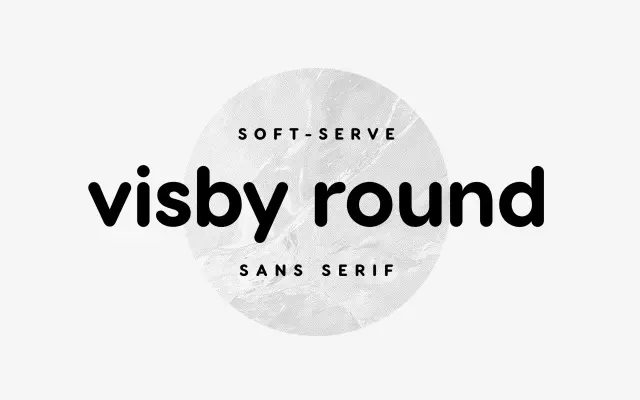
Visby Round
A rounded geometric sans in eight weights with obliques, covering Latin and Cyrillic for friendly, approachable typesetting.
Derived from Connary Fagen's Visby, this variant softens the geometric forms with rounded terminals and subtle humanist influences. Sixteen styles span Extra Light through Heavy, each with a matching oblique, and the character set covers over thirty languages in Latin and Cyrillic scripts. The warmth of the rounded forms suits app interfaces, packaging and display work where a clean geometry would otherwise feel cold.
A rounded geometric sans with humanist touches, described as a sibling to the Visby family. The rounded terminals and overall geometry place it firmly in the rounded geometric sans subcategory.